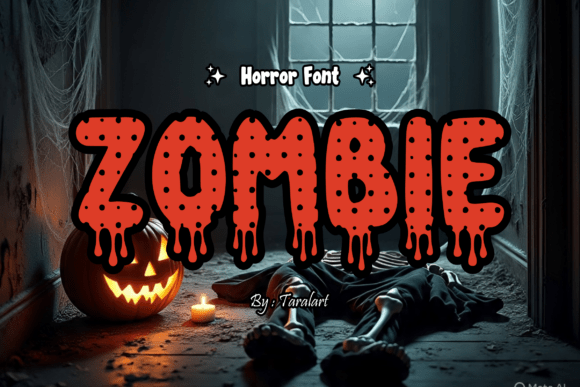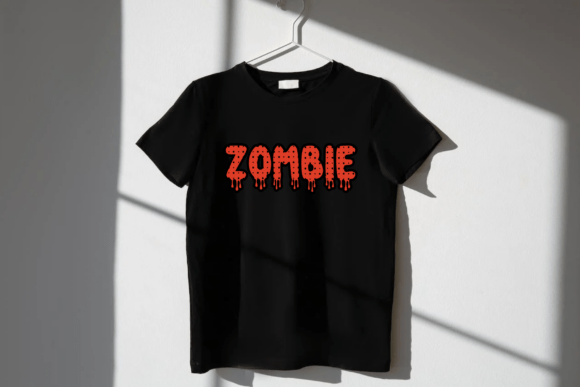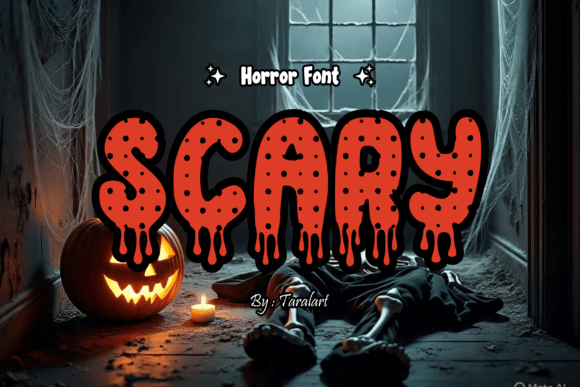
Introduction to Halloween Blood Font
It’s that time of the year when creativity knows no bounds, and our minds start to wander into the realm of the unknown. You’re brainstorming ideas for your next creative project, perhaps a Halloween-themed sublimation design for t-shirts, mugs, or tote bags. Suddenly, you’re hit with a spark of inspiration – a font that screams Halloween, with each character dripping in blood. This is where the Halloween Blood Font comes in, a game-changing design resource that’s sure to elevate your creative vision.
As a designer, you’re always on the lookout for high-quality design resources that can help bring your ideas to life. The Halloween Blood Font is a valuable addition to your toolkit, with its transparent background and free download making it an instant favorite among creatives. Whether you’re working on a comic title, animation, or just a simple design, this font is sure to add that extra oomph to your project.
Halloween Blood Font
- Unique, spooky design ideal for creative projects and Halloween-themed designs.
- Features a transparent background, allowing for easy customization and layering in design applications.
- High-quality font with crisp, detailed characters, making it perfect for printing and digital use.
Honest Review: Halloween Blood Font
I recently had the chance to experiment with the Halloween Blood Font for a creative project, and I was quite impressed. This font is a perfect addition to any design resource that needs a spooky, eerie vibe.
What works well: ✨ The Halloween Blood Font is highly customizable and comes with a transparent background, making it easy to integrate into any design. The free download is also a big plus, as it’s a great resource for designers on a budget. The high-quality design and attention to detail are also noteworthy.
What doesn’t work so well: ⚠️ While the font is highly customizable, it may require some tweaking to get it looking just right. Additionally, the font’s design may not be suitable for all types of projects, as it’s quite bold and attention-grabbing.
Overall impression: I was really impressed with the Halloween Blood Font, and I think it’s a great addition to any designer’s toolkit. While it may have some limitations, the benefits far outweigh the drawbacks.
- Perfect for spooky or eerie-themed designs
- Highly customizable with transparent background
- High-quality design and attention to detail
Halloween Blood Font
The Halloween Blood Font is a unique design resource that adds a spooky touch to your creative projects. With its high-quality, blood-red letters on a transparent background, it’s perfect for Halloween-themed designs, horror movies, and more.
The Halloween Blood Font is perfect for:
- Halloween-themed designs and invitations
- Horror movie posters and trailers
- Spooky social media graphics and ads